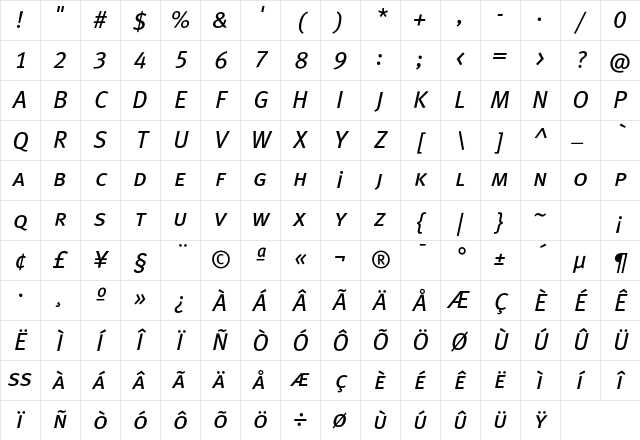
MetaBookTurkLF ItalicCaps Free Font
MetaBookTurkLF ItalicCaps
Style: ItalicCaps
Design Context for MetaBookTurkLF
MetaBookTurkLF is a composed and adaptable typeface that performs quietly and consistently across a wide range of design contexts. The slanted form adds forward momentum and visual energy.
Pro Tip: Use MetaBookTurkLF for emphasis, pull quotes, and subheadings where its slanted energy can add rhythm to the layout.